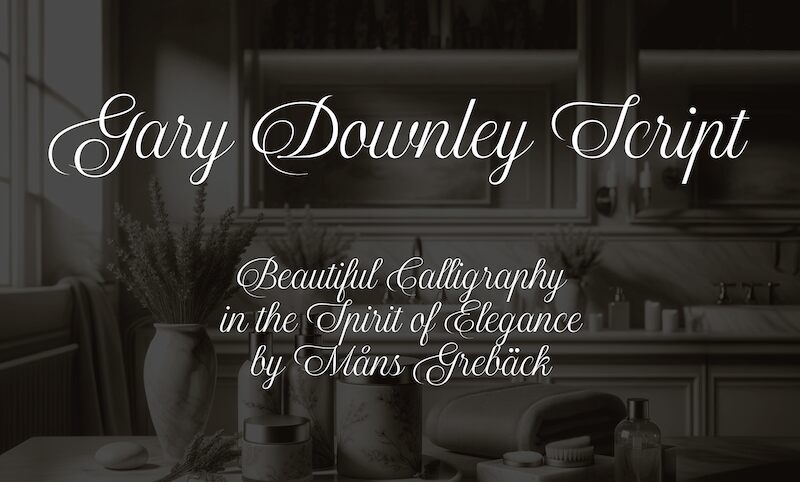
Gary Downley Script is a captivating calligraphic typeface crafted by designer Mans Greback. Its graceful curves and delicate lines imbue the text with a sense of refined sophistication and charming elegance. The font's exquisite, handwritten-inspired aesthetic makes it a compelling choice for any setting that demands a touch of refined beauty.
This versatile script font can elevate a wide range of design projects, from stationery and invitations to branding and editorial layouts. Its calligraphic flair lends an air of sophistication and timeless appeal, making it an excellent selection for formal, high-end applications that require a polished, artisanal aesthetic.